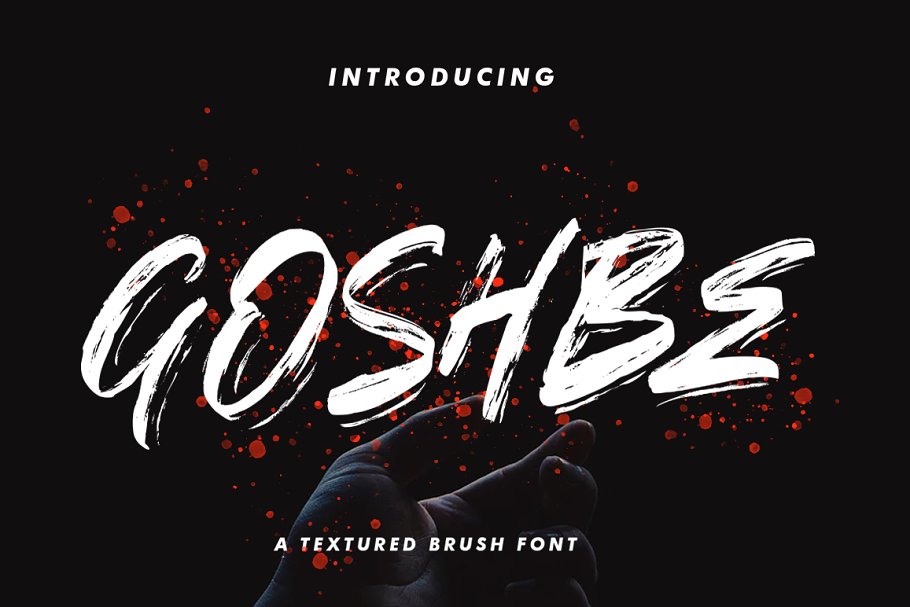
Goshbe Free Streetbrush Display Font
Goshbe — Free Streetbrush Font
Goshbe is a textured street brush font bursting with energy. Carefully crafted for quick strokes and sharp details, it delivers an unapologetically fast-paced look that makes a bold typographic statement. Perfect for logos, apparel, posters and any design that needs a raw, hand-painted texture.
Features
• Textured brush / street brush aesthetic
• Energetic, quick-stroke letterforms with sharp details
• Ideal for: logos, branding, apparel (t-shirts, hoodies), quotes, product packaging, posters, signs, magazines, advertising, vintage designs, and more
• Includes uppercase & lowercase letters
• Numbers & punctuation
• OpenType features
• Multilingual accents / extended character support
Languages & Accents Supported
Supports multiple languages including Afrikaans, Albanian, Dutch, English, Hungarian, Italian, Portuguese, Spanish, Swedish, and Zulu.
Accented characters included (examples):A À Á Â Ã Ä Å C Ç D Ð E È É Ê Ë I Ì Í Î Ï N Ñ O Ø Ò Ó Ô Õ Ö U Ù Ü Ú Û W Y Ý Ÿ Ỳ Ÿ Æ Œ ß Þ